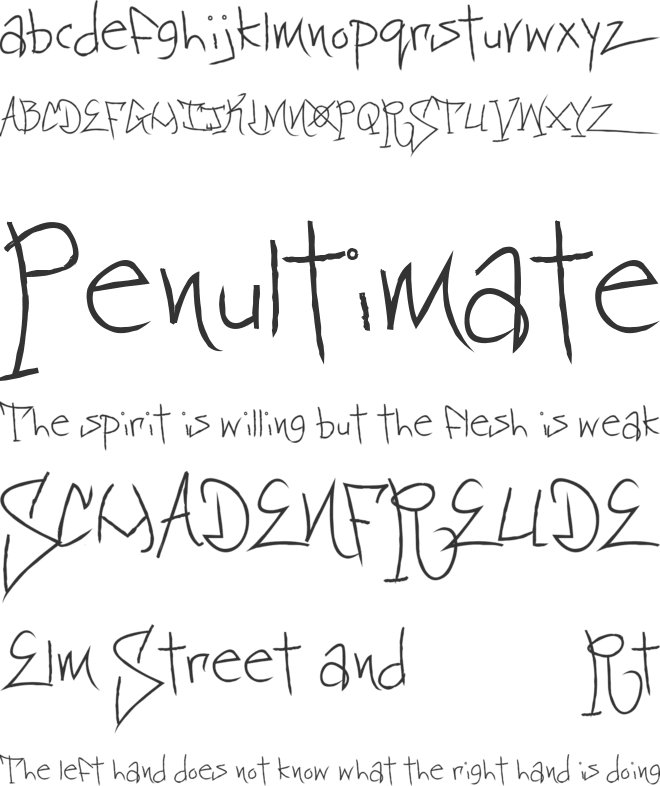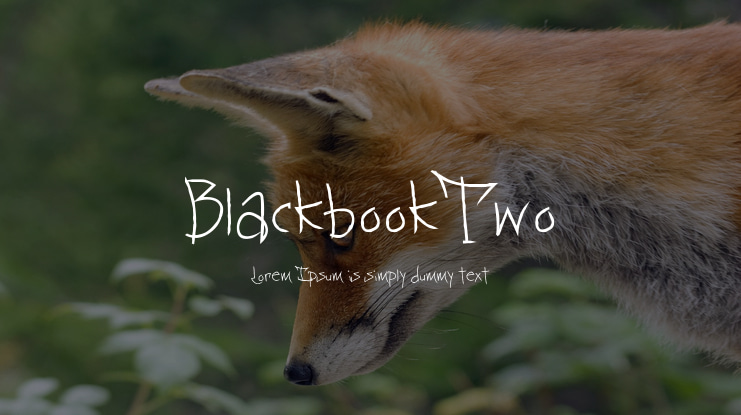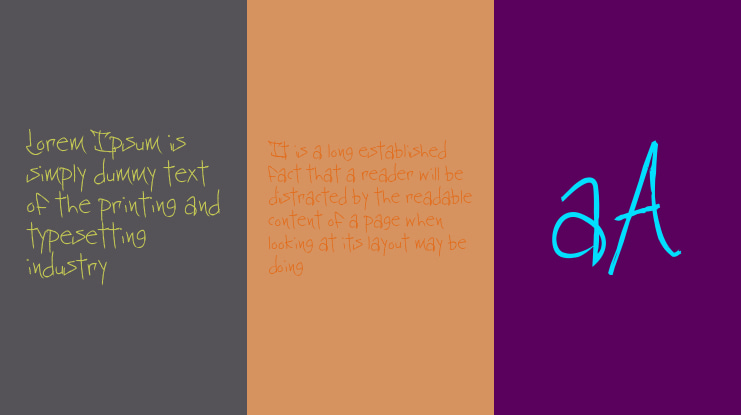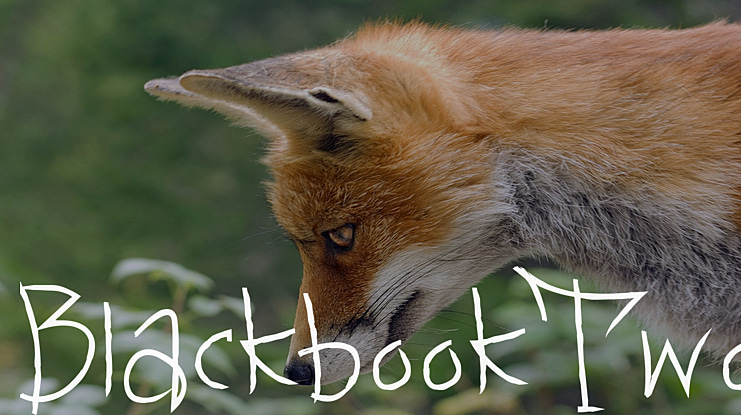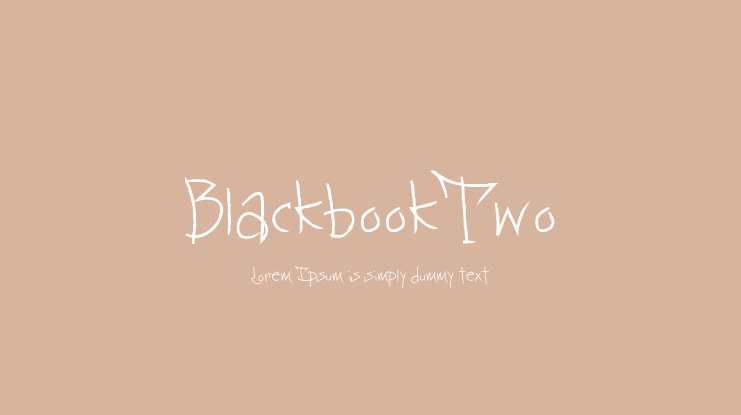
BlackbookTwo Font
A collaboration between Devin Roberts (outliervideo.com) and Michael Muranaka
BlackbookTwo is the second in a series of Blackbook Graffiti Fonts. Letters can be arranged and styled for limitless design possibilities, PERFECT for titling, background textures, CD art, etc. Bust out your designs then rock a B Boy stance-